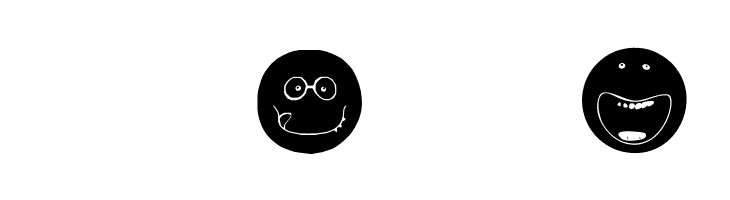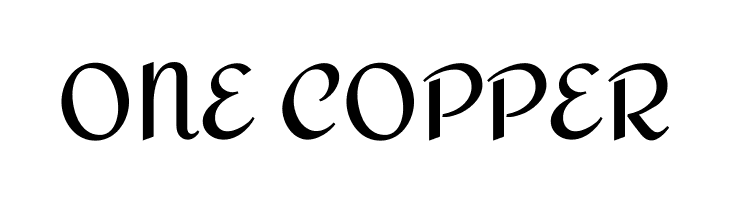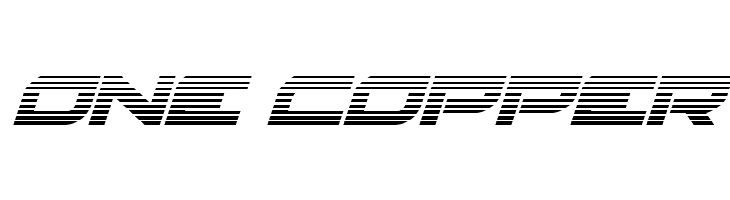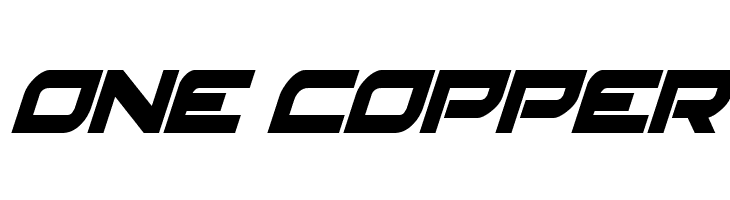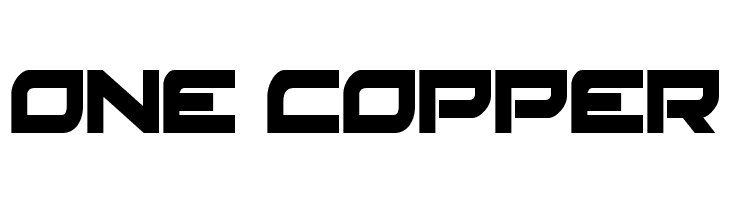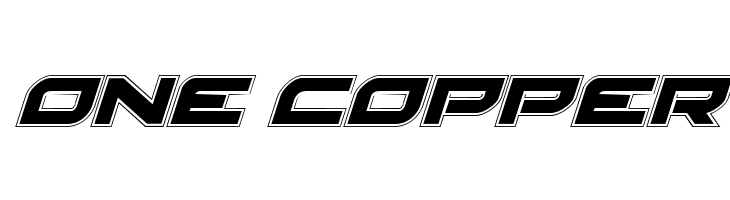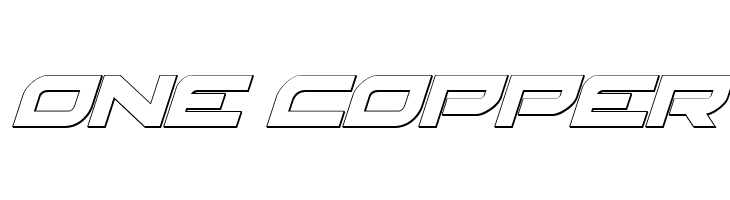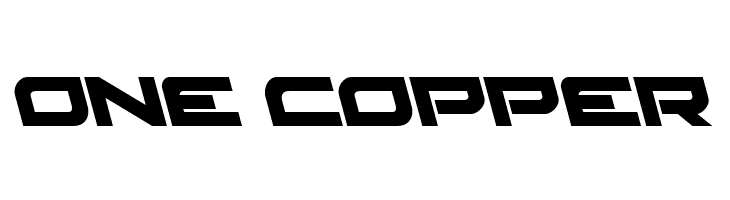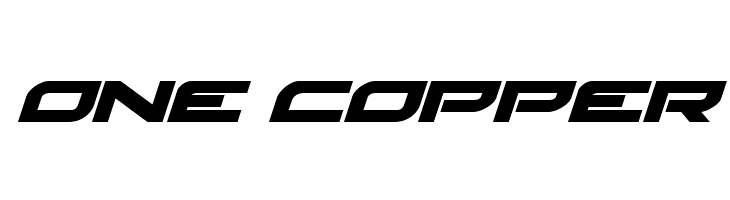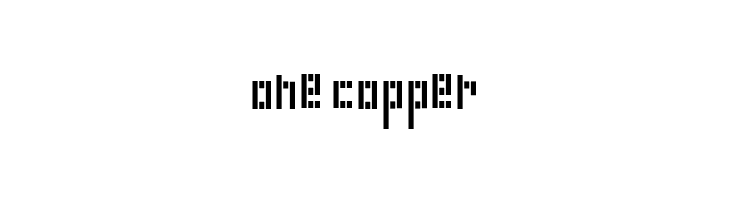
• Rebel Command Regular
A bold, geometric font with segmented characters and a futuristic style.
• Receipt Paper Radiation Regular
• Receiptional Receipt Regular
A dot matrix style font with a retro digital display aesthetic.
• Recycled Bit
A playful, hand-drawn font with irregular strokes and a quirky style.
• Red Mamba Regular
A bold, geometric font with a modern, digital aesthetic.
• Red Nose Day Medium
• Red Rocket 3D Italic
A futuristic, italicized font with a 3D effect and bold geometric lines.
• Red Rocket 3D Regular
A futuristic, geometric font with hollow, outlined letterforms.
• Red Rocket Academy Italic
• Red Rocket Academy Regular
A bold, futuristic font with geometric outlines and sharp edges.
• Red Rocket Condensed
A bold, geometric, and futuristic condensed font with sharp edges.
• Red Rocket Condensed Italic
A dynamic, condensed italic font with a futuristic and sleek design.
• Red Rocket Expanded
A bold, futuristic font with geometric and angular design.
• Red Rocket Expanded Italic
A bold, italicized, and futuristic font with expanded characters and sharp angles.
• Red Rocket Gradient Italic
A futuristic, italicized font with a dynamic, gradient-like design.
• Red Rocket Gradient Regular
A futuristic, digital-style font with a horizontal line gradient effect.
• Red Rocket Italic
A bold, italic, and futuristic font with angular, geometric characters.
• Red Rocket Leftalic
A bold, futuristic font with a leftward slant and geometric design.
• Red Rocket Outline Italic
A modern, italicized outline font with a futuristic and dynamic design.
• Red Rocket Outline Regular
A modern, geometric outline font with a futuristic style.